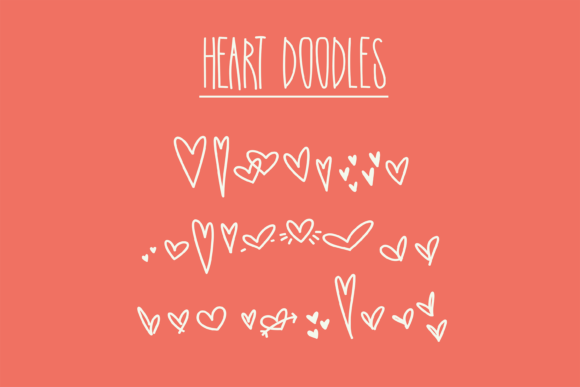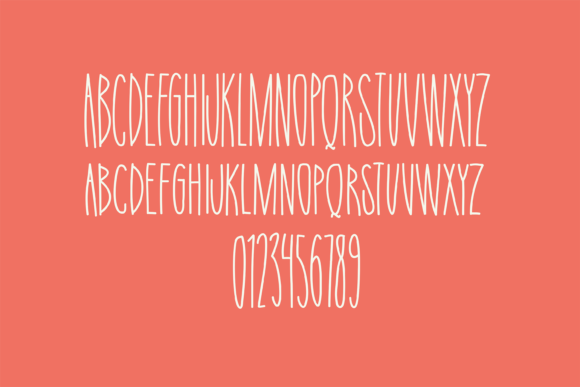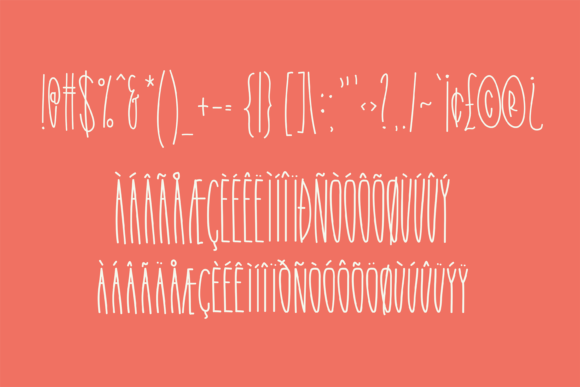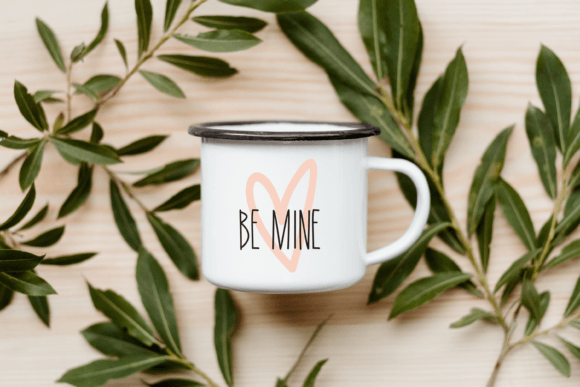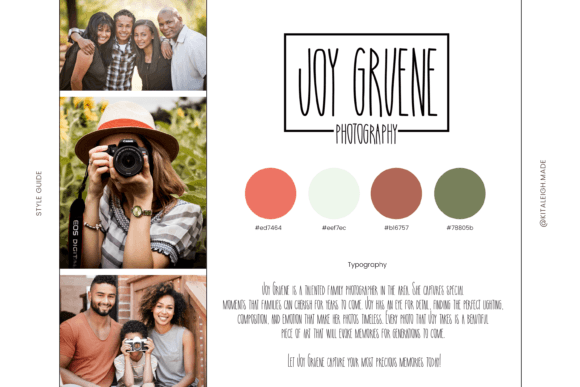
Discover the Quirky Charm of Aloe Love Font: Elevate Your Designs with a Fresh and Playful Twist
Are you on the hunt for a font that injects a dose of fun and whimsy into your designs? Look no further than Aloe Love, a stunning hand-drawn font that’s sure to capture your heart. With its tall, slender lines and carefree feel, Aloe Love is the perfect addition to any project that needs a lighthearted and breezy vibe.
What Makes Aloe Love Font So Special?
Aloe Love is more than just a font – it’s an experience. Its playful, elongated lines and quirky charm make it an instant standout in any design. Whether you’re working on a fun headline, a modern invitation, or a packaging project that needs a touch of whimsy, Aloe Love is the perfect choice. This font brings a fresh and youthful energy to your designs, making it perfect for creatives who want to add a unique twist to their everyday projects.
The Perfect Font for Creative Crafts and Designs
As a designer or crafter, you’re always on the lookout for fonts that can help you create unique and eye-catching designs. Aloe Love is a game-changer in this regard. Its simple yet full-of-personality design makes it perfect for a wide range of creative projects, from handmade crafts to digital designs. Whether you’re creating custom stationery, branding materials, or social media graphics, Aloe Love is the go-to font for adding a touch of personality and whimsy.
Key Features of Aloe Love Font
- Hand-drawn with love: Aloe Love is a carefully crafted, hand-drawn font that exudes a sense of carefree charm.
- Tall and slender lines: The font’s elongated lines give it a playful and whimsical feel that’s perfect for headlines and titles.
- Quirky and fun: Aloe Love is the perfect font for designers who want to add a touch of fun and personality to their designs.
- Perfect for creative crafts: This font is ideal for handmade crafts, DIY projects, and other creative endeavors.
- Simple yet impactful: Aloe Love is a simple font that’s full of personality, making it perfect for a wide range of design applications.
How to Use Aloe Love Font in Your Designs
- Headlines and titles: Aloe Love is perfect for creating eye-catching headlines and titles that demand attention.
- Invitations and announcements: Add a touch of whimsy to your invitations and announcements with this playful font.
- Packaging design: Use Aloe Love to add a unique and playful touch to your packaging designs.
- Social media graphics: This font is perfect for creating fun and engaging social media graphics that stand out from the crowd.
Why Choose Aloe Love Font?
- Unique and eye-catching: Aloe Love is a one-of-a-kind font that’s sure to capture your audience’s attention.
- Easy to use: This font is simple to use and can be incorporated into a wide range of design applications.
- Versatile: Aloe Love is perfect for a wide range of design projects, from creative crafts to digital designs.
- Fun and playful: This font adds a touch of fun and whimsy to any design, making it perfect for creatives who want to add some personality to their work.
In conclusion, Aloe Love Font is a must-have for any designer or crafter looking to add a touch of fun and whimsy to their designs. With its playful, elongated lines and quirky charm, this font is perfect for a wide range of creative projects. So why wait? Discover the magic of Aloe Love today and take your designs to the next level!